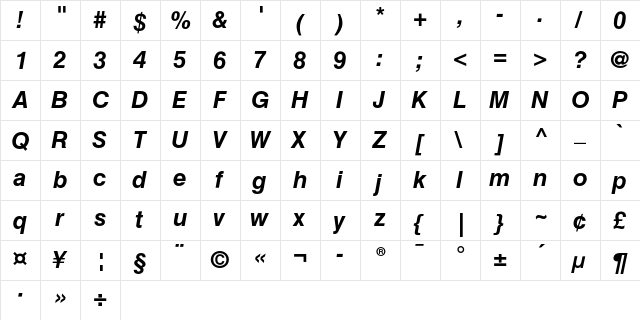
Helvetica Cyrillic Bold Inclined Font Preview
Helvetica Cyrillic Bold Inclined
Helvetica Cyrillic Bold Inclined Font Details
| Style | Cyrillic Bold Inclined |
Design Context for Helvetica Typeface
Helvetica is a composed and adaptable typeface that performs quietly and consistently across a wide range of design contexts. The heavy weight commands attention and anchors typographic hierarchies.